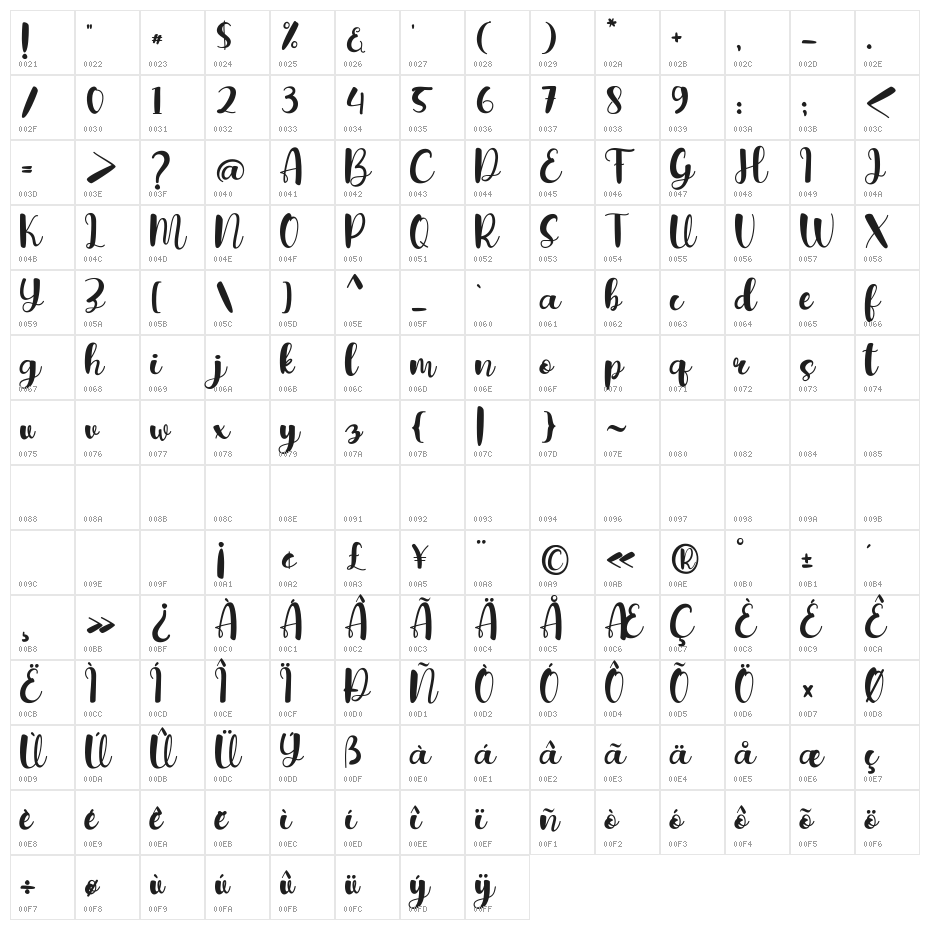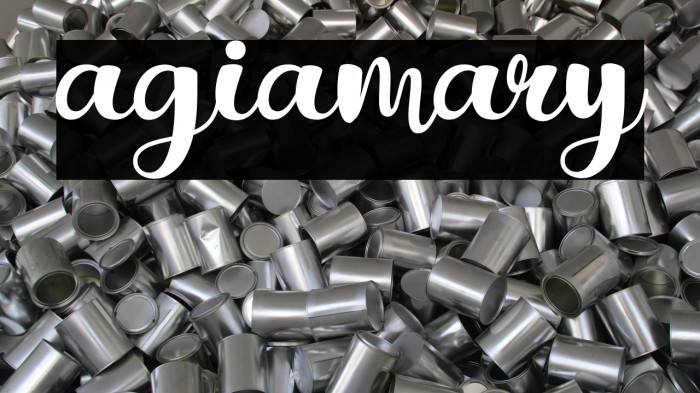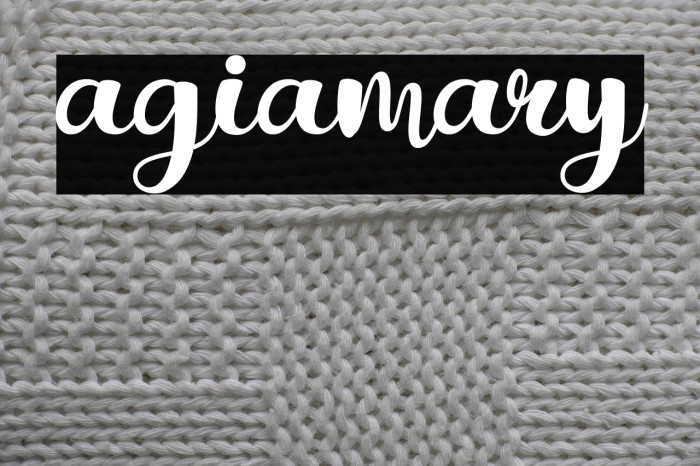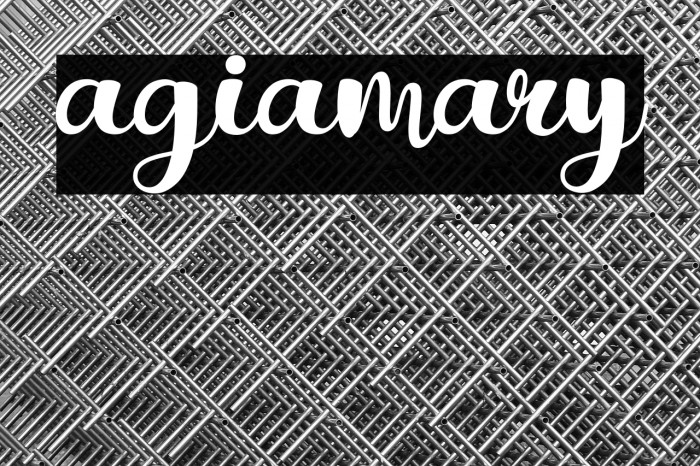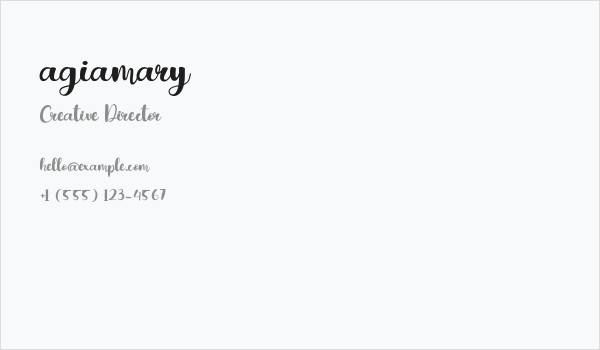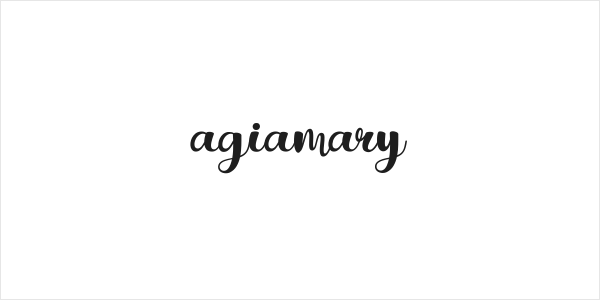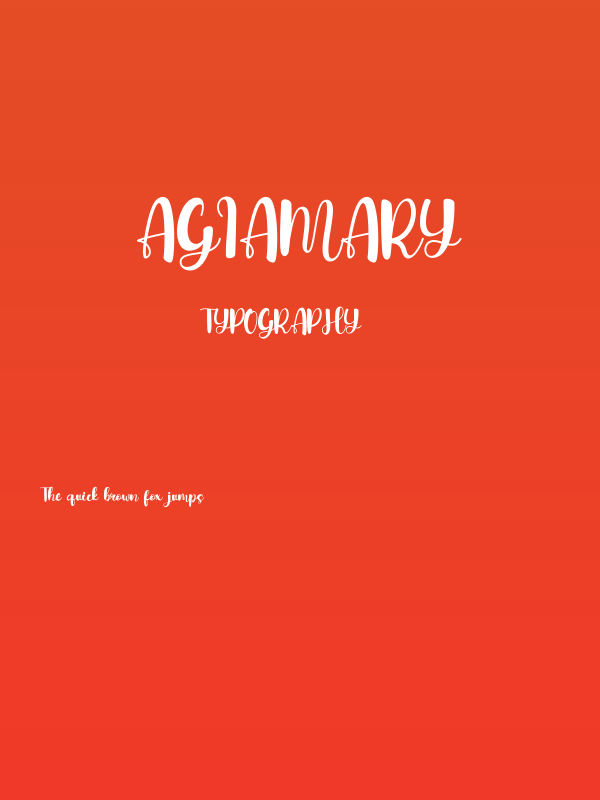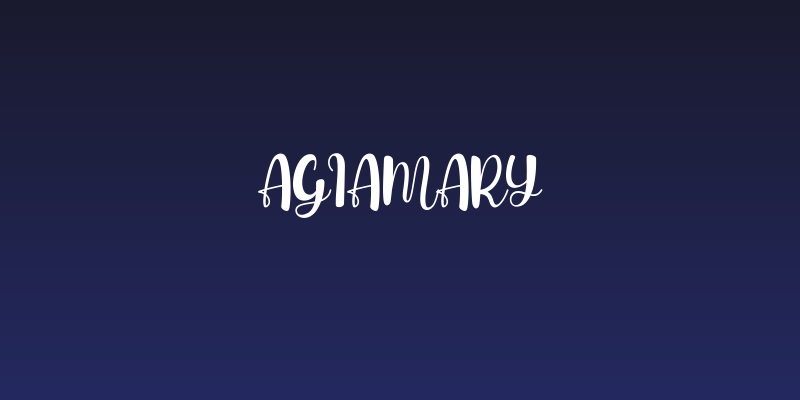
agiamary Font
agiamary Description
This font features a playful and flowing script style, characterized by its bold and rounded letterforms. The uppercase letters are elegantly looped and connected, while the lowercase letters maintain a consistent and smooth flow. The numbers are distinct and easily readable, with a slight slant that adds to the overall dynamic feel. Special characters are creatively designed, complementing the whimsical nature of the font. The strokes are thick, providing a strong visual impact, and the overall appearance is both modern and approachable, making it suitable for a variety of creative projects.
| Overall Style | Playful, Modern |
| Use Case | Logos, Invitations, Greeting cards |
| Proposed Projects | Ideal for greeting cards, invitations, logos, and branding materials that require a friendly and creative touch. |